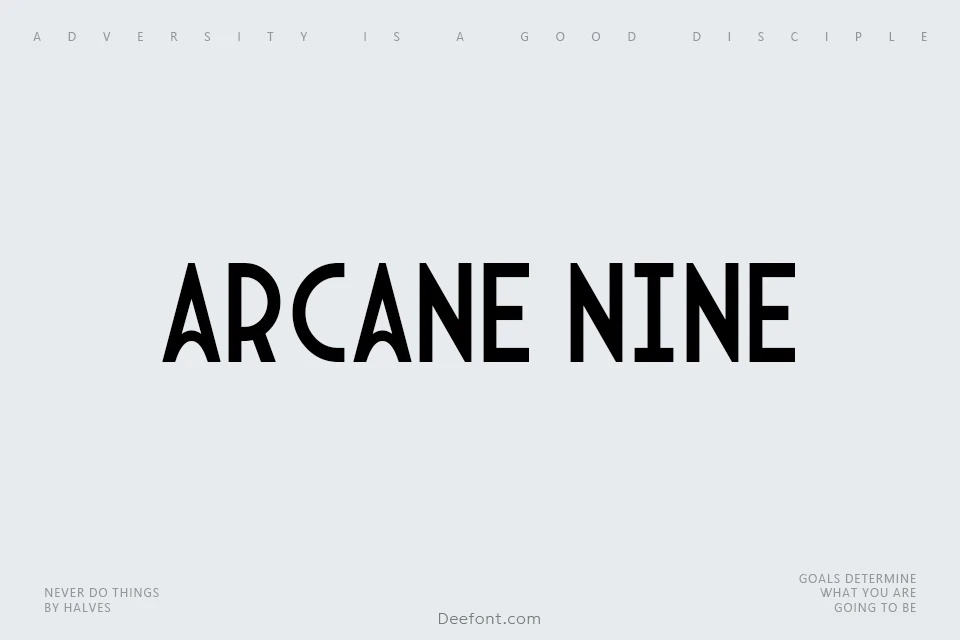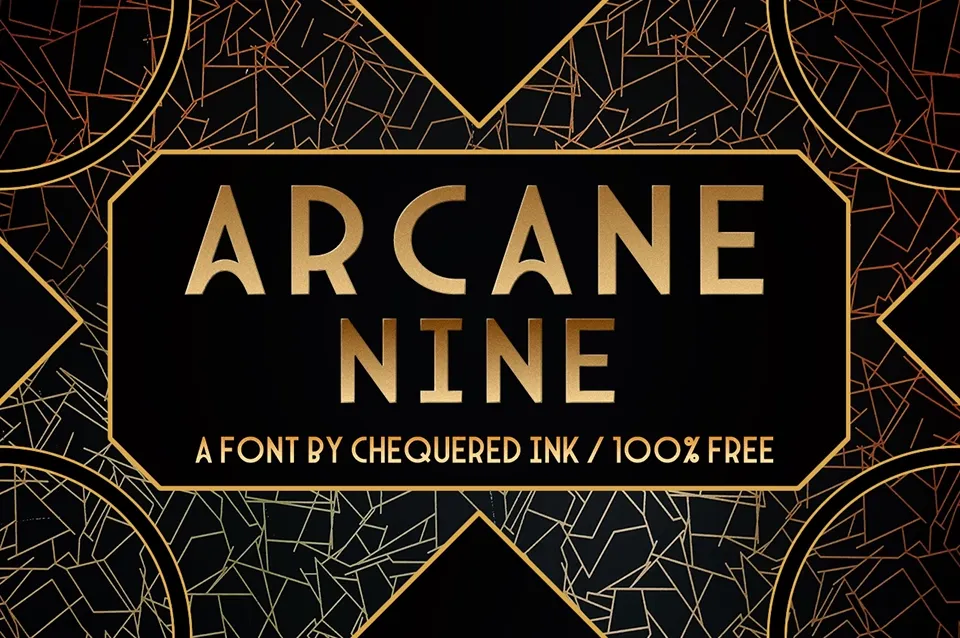
Arcane Nine Font
Arcane Nine Font is a stylish art deco font inspired by the visual flair of Arcane: League of Legends. Designed with semi-bold, simple characters, it exudes both elegance and approachability, making it ideal for event announcements, movie titles, shop flyers, retro albums, and product packaging. Supporting only capital letters, Arcane Nine is perfect for bold headlines and creative branding, especially for fans of Arcane or anyone seeking a retro yet modern look.